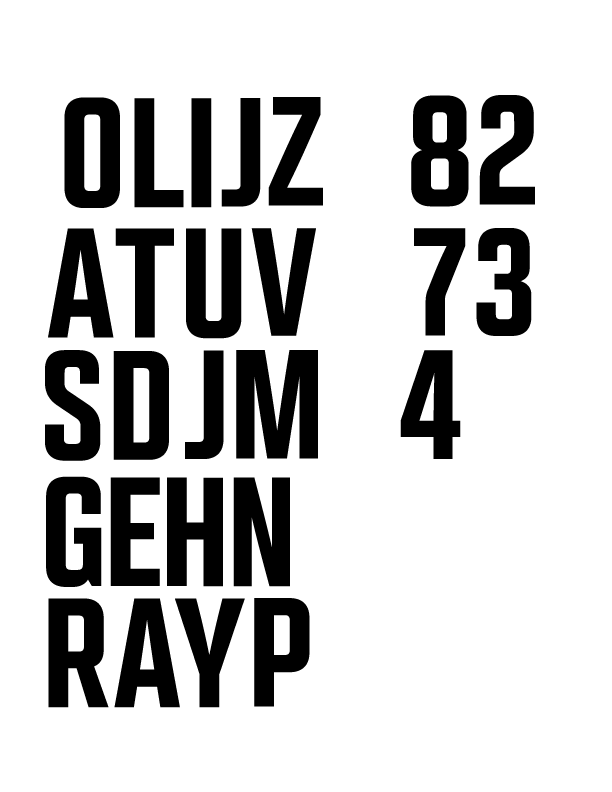
Hoping someone may be able to help me with identifying this typeface. I have searched endlessly, and tried the identifier tools but I can’t seem to find a match. Any help would be greatly appreciated.
I don’t think you are finding a match because it’s more than one font. In my opinion ![]()
At this point is just a bunch of random letters and numbers … near as I can tell.
There are lots of San Serifs that match a couple but not all.
I also see several matches for SOME of the numbers but nothing for the 7. None of the bends are quite right.
This example is all over the place … again, just my opinion ![]()
What is this from? Do you have more examples?
Otherwise I think this is something someone just threw together or possibly altered.
I’m officially stumped
Maybe someone else might have more info.
Where did you find the sample?